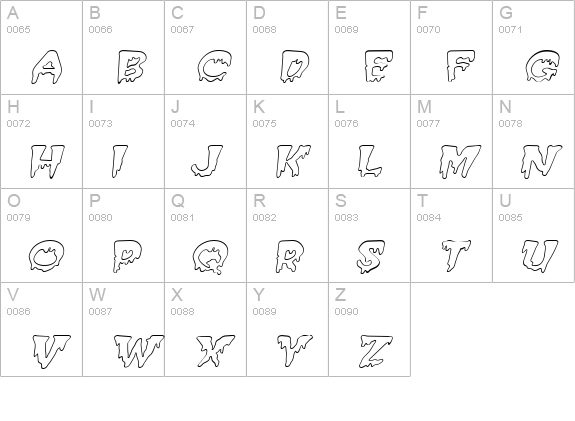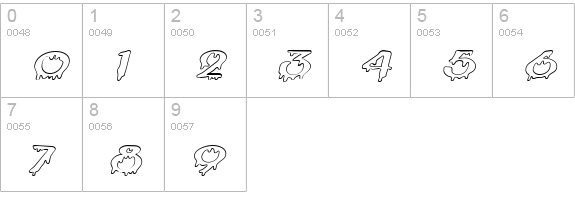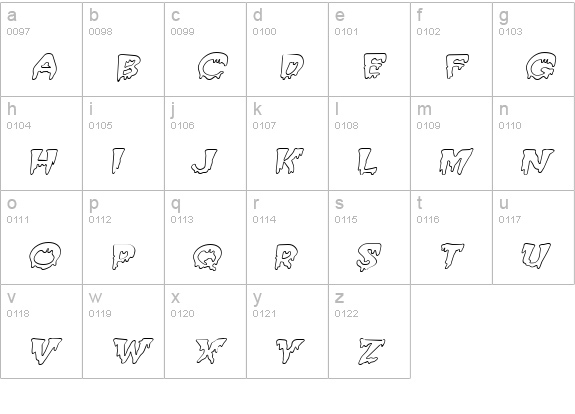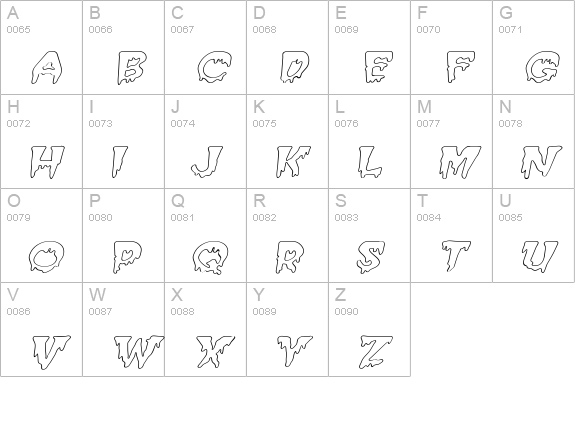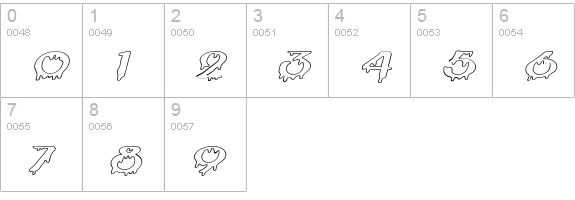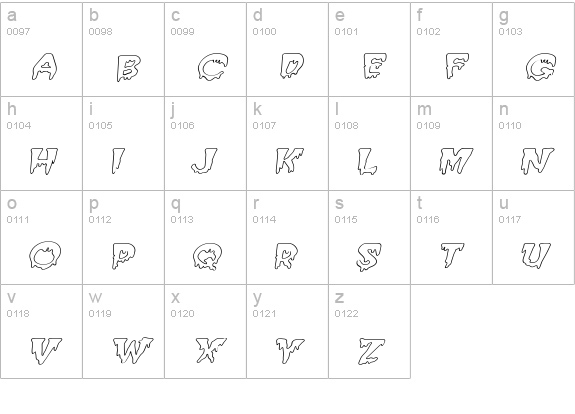
Creepy HollowExtended Italic Font Details
Creepy HollowExtended Italic is a distinctive, italic variant in the Creepy typeface family \xE2\x80\x94 well suited to design and typography projects.
Creepy Hollow Extended Italic font is a hauntingly beautiful typeface that will send shivers down your spine. With its elongated and slanted letters, this font exudes an eerie and mysterious vibe, perfect for adding a touch of spookiness to your designs. The intricate details and subtle curves of Creepy Hollow Extended Italic font make it a captivating choice for projects that require a touch of darkness and intrigue. Whether you're working on a Halloween-themed design, a horror novel cover, or a gothic-inspired poster, this font is sure to make a lasting impression. Best of all, Creepy Hollow Extended Italic font is available for free download at FontsMarket.com. So, unleash your creativity and add a touch of the macabre to your designs with this chillingly beautiful typeface.